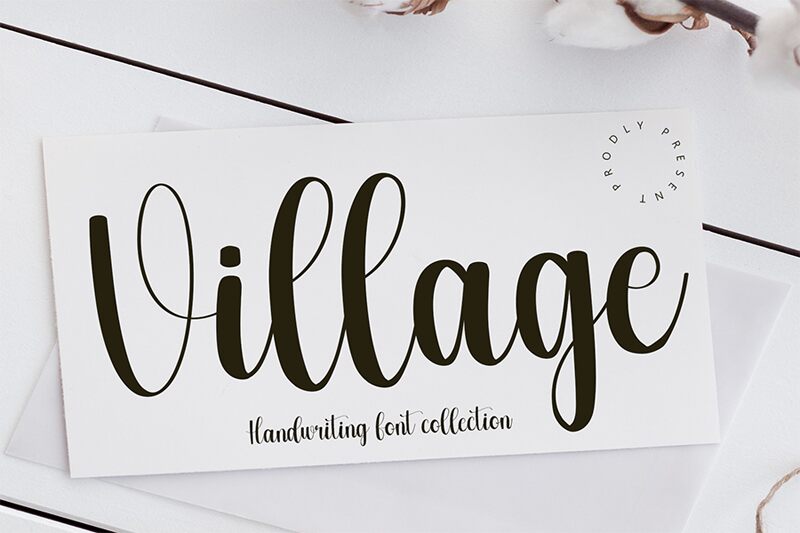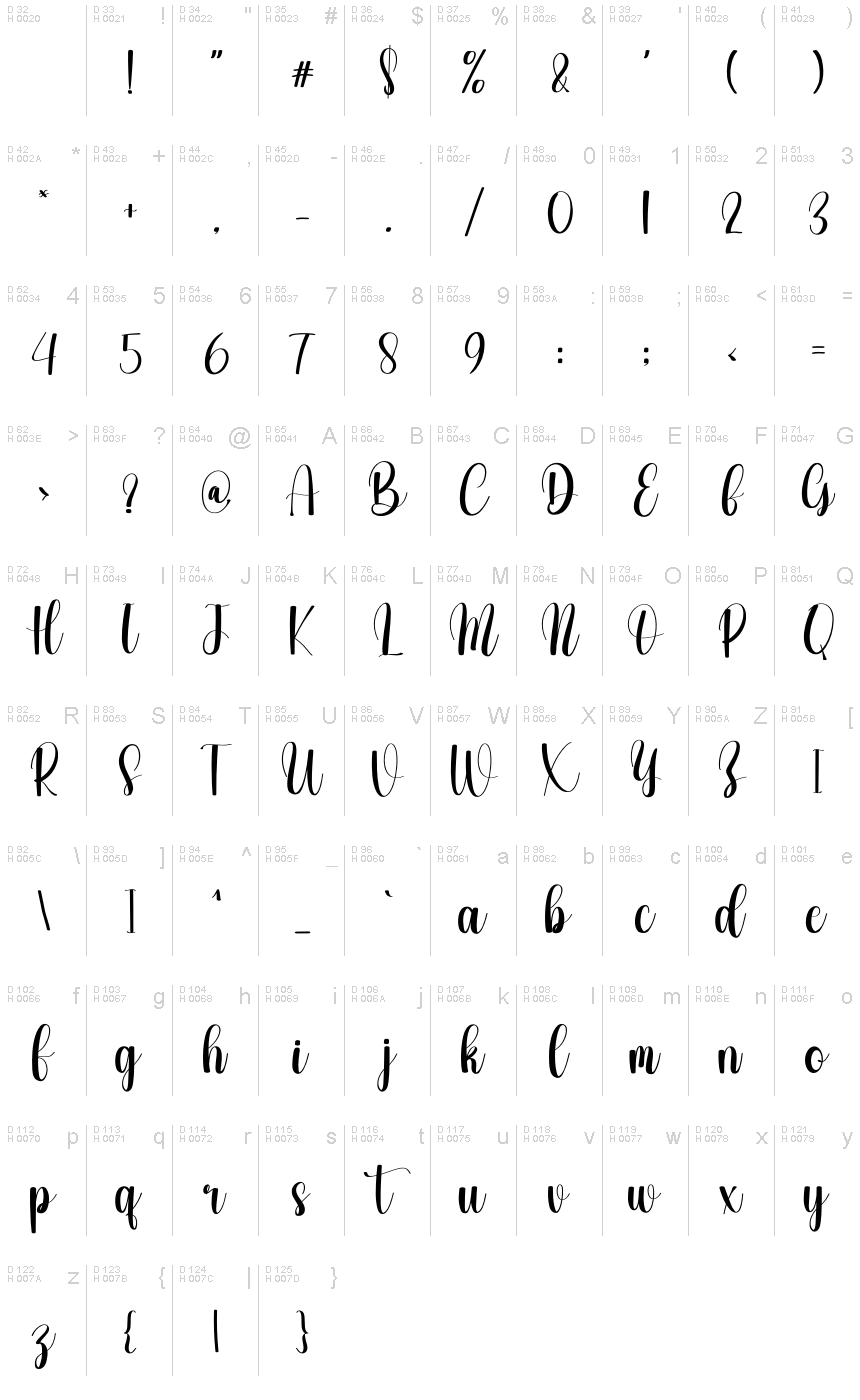
Village
Village font by Creative Homework has a classy and elegant calligraphic influence. This modern free font retains an artistic flair with smooth flowing curves that convey playfulness and dynamism. As a whole, the design is fresh and pleasing to the eyes which makes it perfect for more than one style of application.
Use Village in crafting creative posters, invitations, business cards, letterheads, stationery, or whatever work document you wish to get noticed. The font works beautifully on a larger scale where its visual features can be prominent and have the impact they deserve on your target audience.